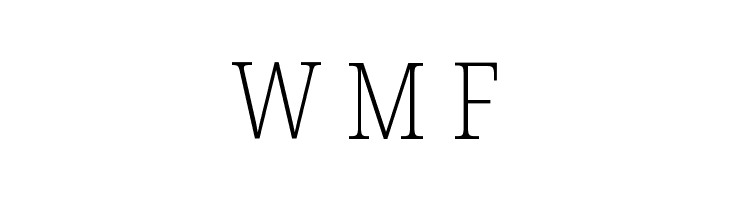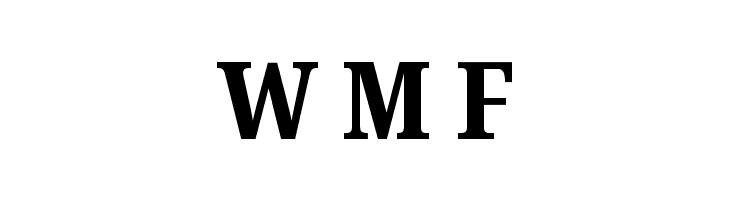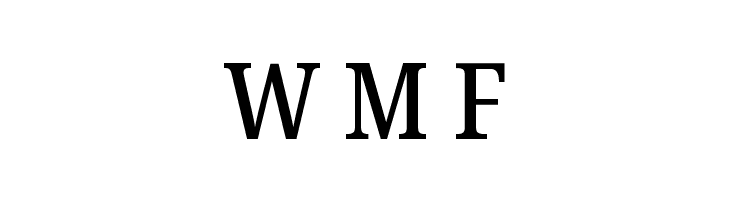
Invalid font with placeholder squares.
A highly condensed, thin, and modern font with a sleek and elegant appearance.
An elegant and refined serif font with thin, delicate strokes.
A light, elegant serif font with refined strokes and subtle serifs.
A medium-weight serif font with balanced proportions and moderate contrast.
A classic, readable serif font with balanced proportions and moderate contrast.
A semi-bold serif font with a classic and formal appearance, offering medium contrast and normal spacing.
A semi-condensed serif font with moderate contrast and classic elegance.
A bold, semi-condensed serif font with high contrast and a modern yet classic style.
A bold, semi-condensed serif font with classic elegance and strong readability.
The image shows placeholder symbols instead of a valid font.
A clean, semi-condensed, extra light serif font with balanced spacing.
A light, semi-condensed serif font with a modern yet classic style.
A semi-condensed, medium-weight serif font with a modern yet classic appearance.
A semi-condensed serif font with semi-bold weight, offering a classic and readable style.
A semi-condensed, thin serif font with high contrast and elegant style.
A thin, elegant serif font with a modern and sophisticated design.
A bold, high-contrast serif typeface with strong, thick strokes and prominent serifs.
A bold, italic serif typeface with strong contrast and dynamic style.
A refined serif typeface with a condensed structure, offering elegance and readability.
A bold, condensed serif font with a classic and authoritative style.
A bold, condensed serif font with an elegant italic style.
A refined serif font with a condensed, medium weight and italic style.
A classic serif typeface with a condensed, semi-bold style, offering elegance and readability.
A refined, condensed serif font with a semi-bold italic style.